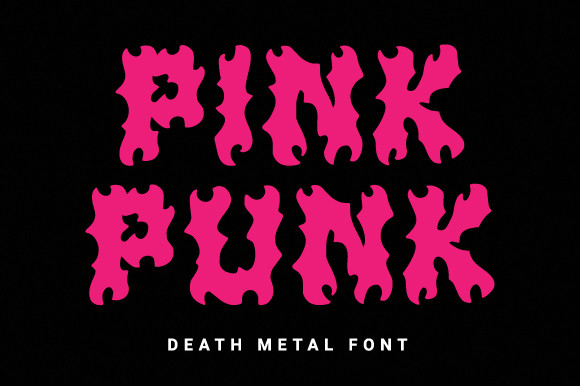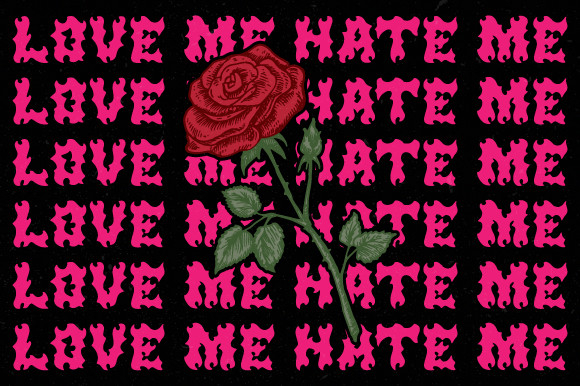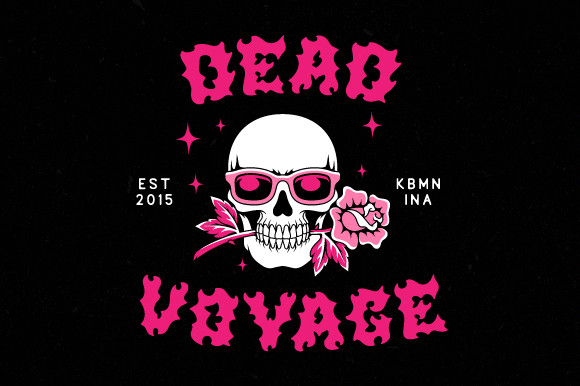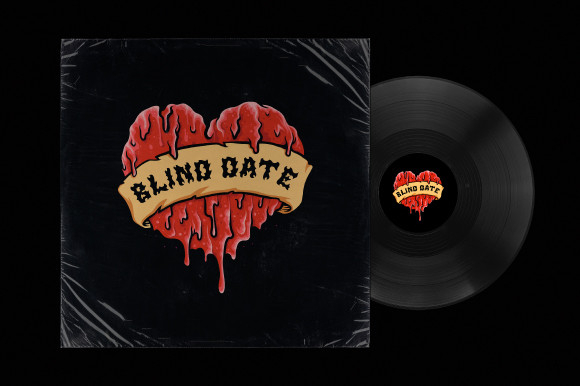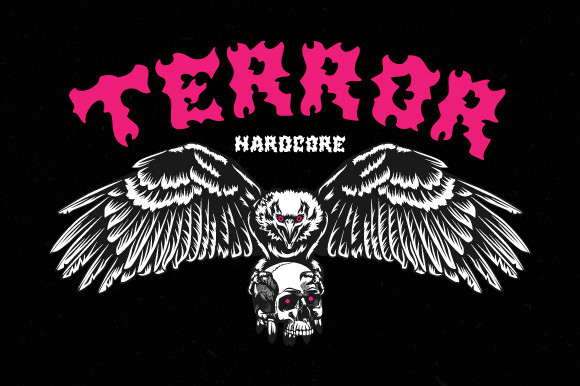
Pink Punk Font
About Pink Punk Font
Pink Punk is a cool, spooky and horror looking blackletter font. It works incredibly well for Halloween creations or pretty much anything that could benefit from a scary vibe.